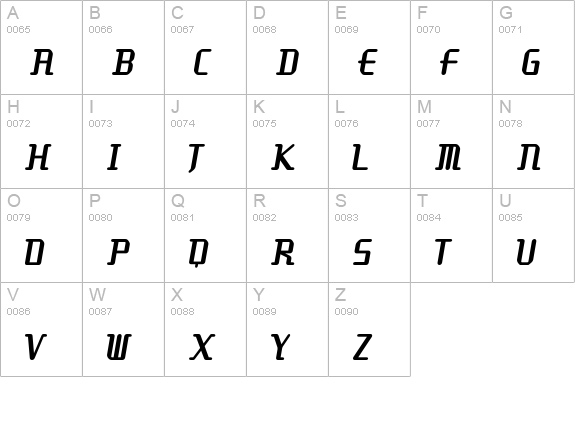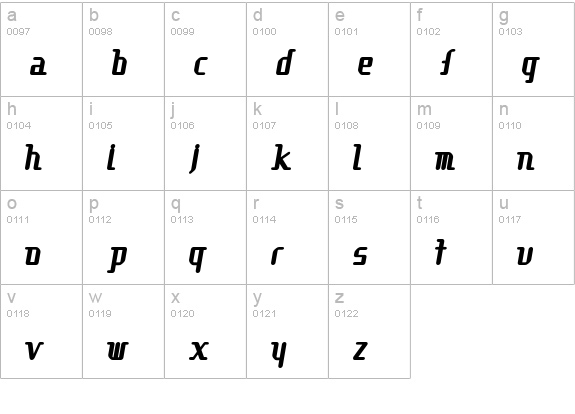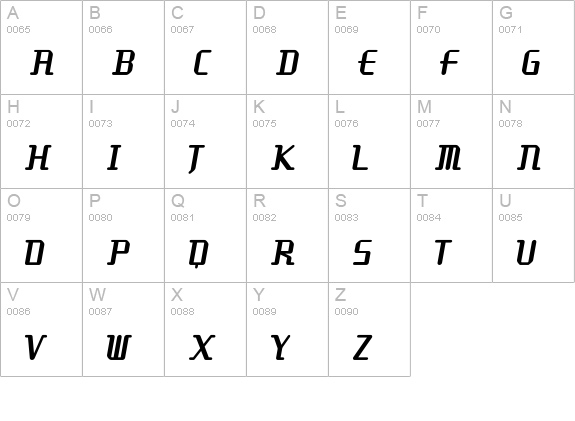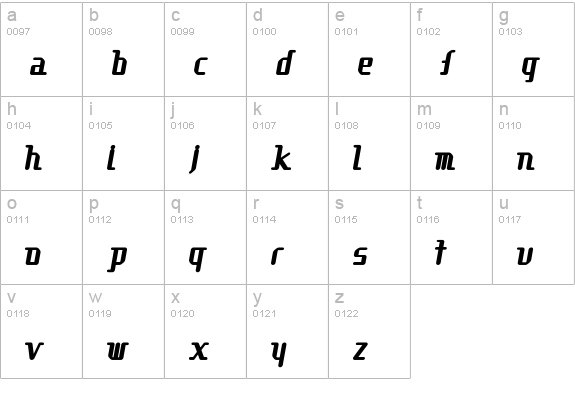
Be Font Details
Be font is a modern and stylish typeface that exudes elegance and sophistication. Its sleek lines and contemporary design make it perfect for a wide range of projects, from branding to editorial design. With its clean and minimalist aesthetic, Be font adds a touch of class to any design. The best part about Be font is that it is completely free to download at FontsMarket.com. This means that you can access this high-quality font without having to spend a dime. Whether you're a graphic designer looking to elevate your projects or a business owner in need of a professional font for your branding, Be font is the perfect choice. Don't miss out on the opportunity to enhance your design work with the timeless beauty of Be font. Download it for free today and start creating stunning designs that stand out from the crowd.